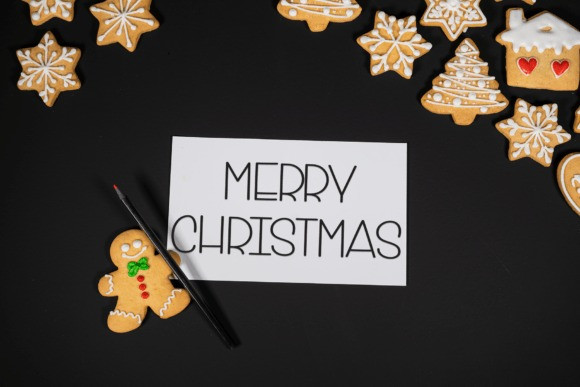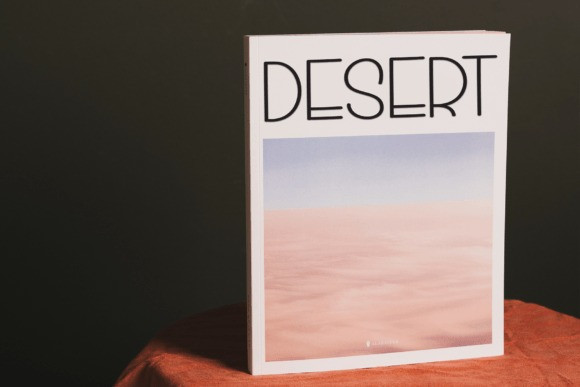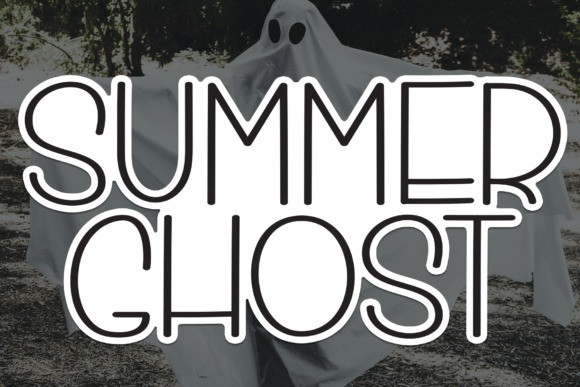
Summer Ghost Font
Summer Ghost Font is a sweet and friendly handwritten display font. Cute and fun, this font is ideal for writing wedding invitations, cards, or any other design that might need a fun touch!